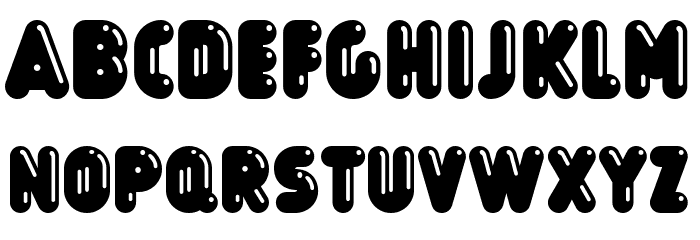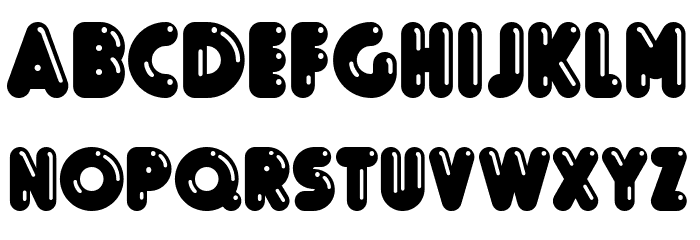
Boule Reduced Brillant Font
This playful and bold font features a unique bubble-like design with rounded edges and circular cutouts, giving it a whimsical and eye-catching appearance. The letters are uniformly thick, creating a strong visual impact, while the circular accents add a touch of fun and creativity. The font is highly decorative, making it ideal for projects that require a standout display typeface. Its boldness ensures readability even at smaller sizes, while the playful design makes it suitable for a variety of creative applications.
A bold, playful font with bubble-like design and circular accents.
- Proposed Projects: Ideal for children's books, playful branding, party invitations, and creative posters.
- Overall Style: Playful, Whimsical, Decorative